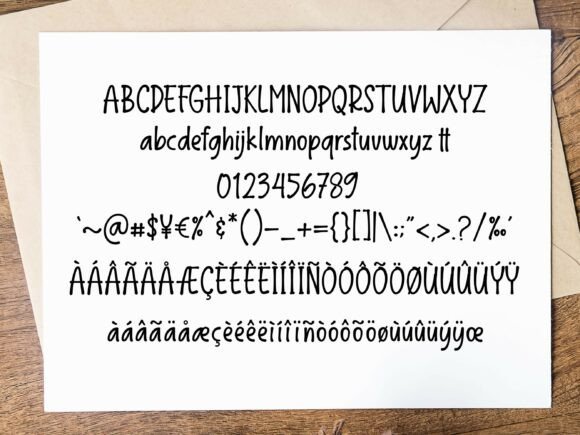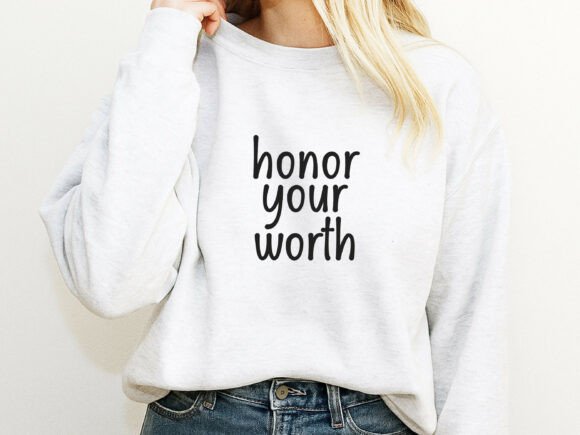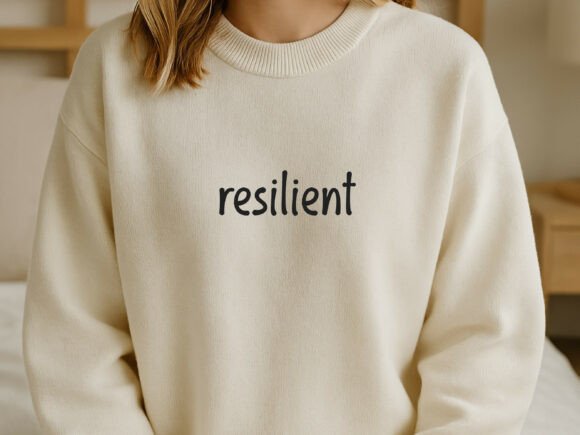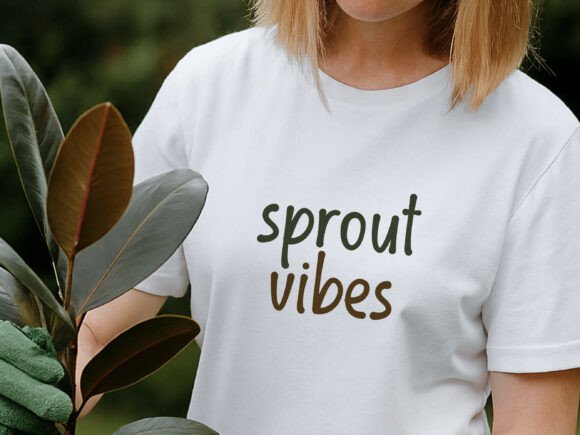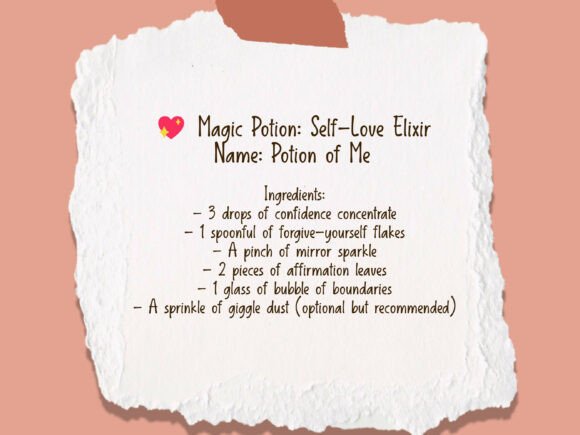
Introduction to Hand Notes Font
As a designer, I still remember the feeling of rummaging through my old notebooks, filled with scribbled notes and hand-drawn sketches. There’s something special about handwritten notes that brings a touch of personality to a project. That’s why I’m excited to share with you the Hand Notes Font, a beautiful, casual handwriting font perfect for taking notes, writing paragraphs, and adding a personal touch to your creative projects.
The Hand Notes Font is a valuable resource for designers who want to add a human touch to their work. With its high-quality design and transparent background, it’s easy to use and integrate into your design projects. And the best part? It’s available for free download, making it an accessible resource for designers of all levels. Whether you’re working on a personal project or a client-based design, the Hand Notes Font is sure to add a unique touch to your work.
- Unique, handwritten design that adds a personal touch to any creative project.
- High-quality font with transparent background, making it ideal for use on any design resource.
- Comes in a single font style with multiple weights, allowing for a range of creative expressions.
- Perfect for use in scrapbooking, journaling, and other paper crafting projects, as well as digital design elements.
Honest Review: Hand Notes Font
I recently stumbled upon the Hand Notes Font, and I must say it’s a great addition to any designer’s arsenal. This beautiful, high-quality font is perfect for creating a unique and creative project that stands out from the crowd.
What I love about the Hand Notes Font is its versatility. It comes with a transparent background, making it easy to layer and combine with other design elements. This feature allows designers to achieve a seamless and cohesive look in their projects.
Here are some key features that work well:
- High-quality design: The Hand Notes Font is meticulously crafted to provide a professional and polished look.
- Transparency: The transparent background allows for easy layering and combining with other design elements.
- Limited character set: The font only includes a limited number of characters, which may not be sufficient for more extensive design projects.
- Not suitable for small text: Due to its cursive nature, the Hand Notes Font is not ideal for small text or body copy.
Overall, the Hand Notes Font is a fantastic resource for designers looking to add a touch of elegance and sophistication to their projects. With its high-quality design and transparent background, it’s a great choice for creative projects. Just be aware of its limitations, and you’ll be well on your way to creating stunning designs with this font.
Tips for Getting the Most Out of Hand Notes Font
For the best results, use Hand Notes Font on a transparent background to create a high-quality design. Experiment with different font sizes and colors to add visual interest to your project. You can also combine Hand Notes Font with other design resources to create a unique and creative look.
Hand Notes Font is perfect for creating invitations, social media graphics, and other design elements that require a handwritten or cursive font. It’s also great for use in educational materials, such as worksheets and lesson plans, where a friendly and approachable tone is desired.